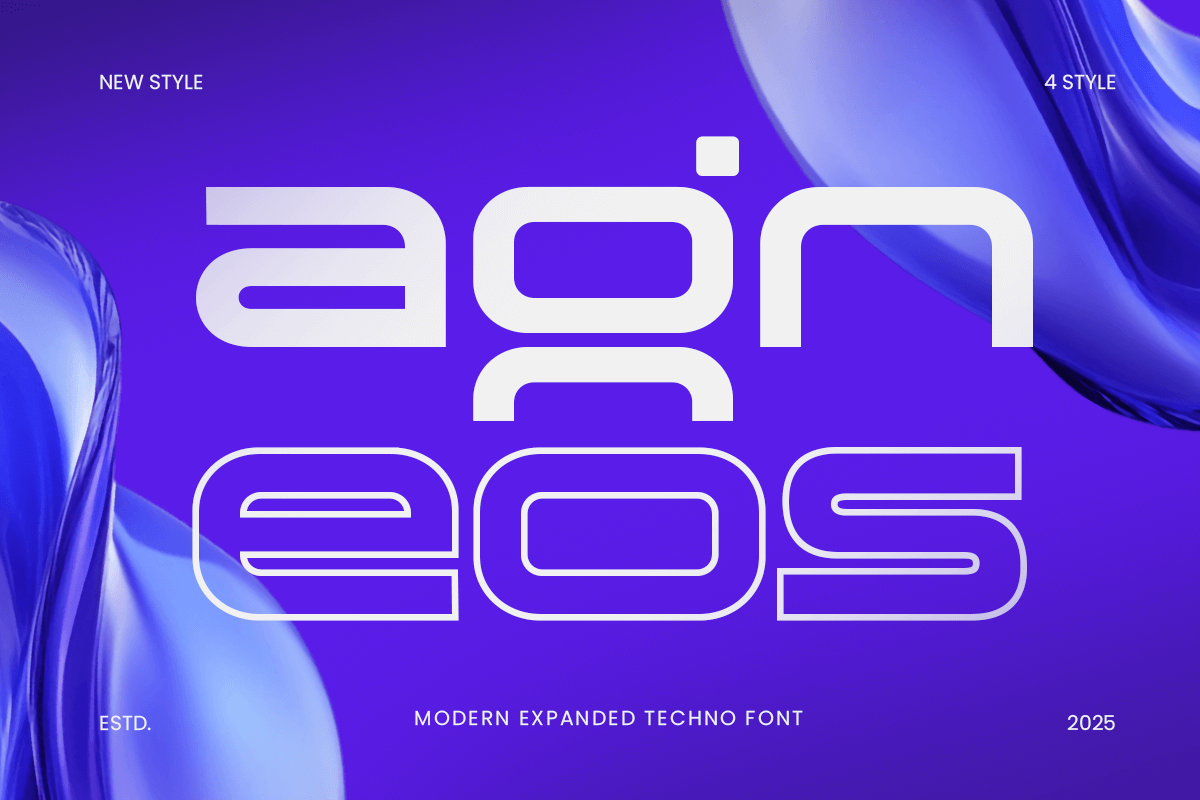
Agneos
-Modern Expanded Techno Logo Font
Agneos - Modern Expanded Techno Logo Font
AGNEOS is a modern expanded techno futuristic font designed to push the boundaries of digital branding. With its bold, extended letterforms and sharp geometric style, AGNEOS creates a strong visual identity that resonates with futuristic and tech-forward projects.
Ideal for logos, high-tech branding, gaming titles, and sci-fi themed designs, AGNEOS blends sleekness with innovation. Its expanded structure and clean lines make it perfect for eye-catching visuals, while the futuristic vibe ensures your brand stands out in a tech-savvy world.
Whether you’re working on a cutting-edge product, a tech startup, or a digital campaign, AGNEOS brings the innovation and clarity you need to make a statement.
AGNEOS – Modern Expanded Techno Futuristic Font Features
• Bold, expanded techno letterforms
• Ready with Regular, Outline, Italic, Outline Italic
• Perfect for logos, digital products, and branding
• Clean, modern, and futuristic design
• OpenType features for extra typographic flexibility